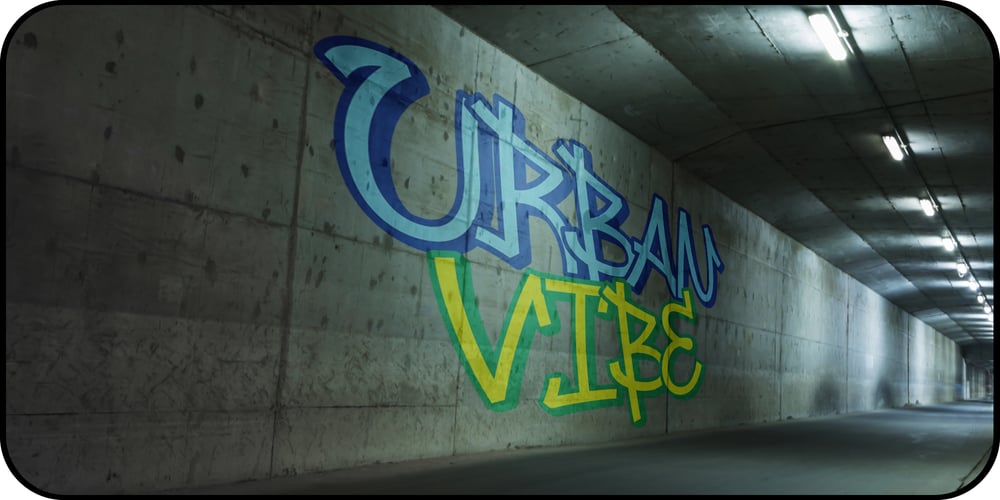
Urban Vibe
Urban Vibe font
Urban Vibe Font Family was designed by Dain Choi and published by DainType. Urban Vibe contains 4 styles and family package options. We tried to implement graffiti that is common in our city. Everyone wants to express themselves. Whether in writing, painting on canvas or on the street, everything must be respected as art. It can be useful when you want to express graffiti art, but also consider readability. You can also work easily with three color fonts.